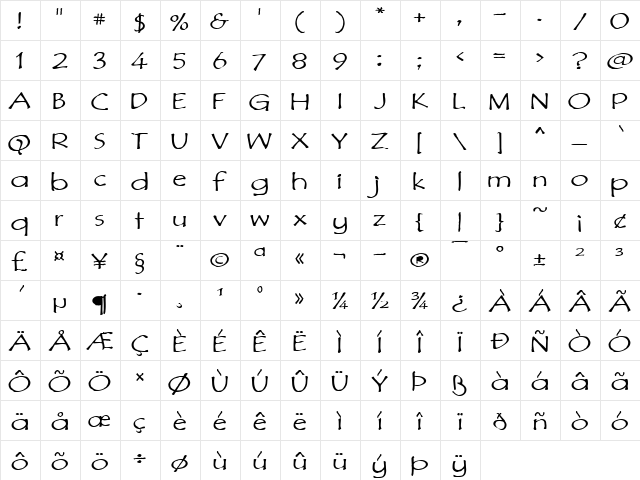
Di Murphic Full Regular
Design Context for Di Murphic Full Typeface
Di Murphic Full takes a measured approach to typography — its balanced proportions and neutral character make it a reliable workhorse for both digital and print work.